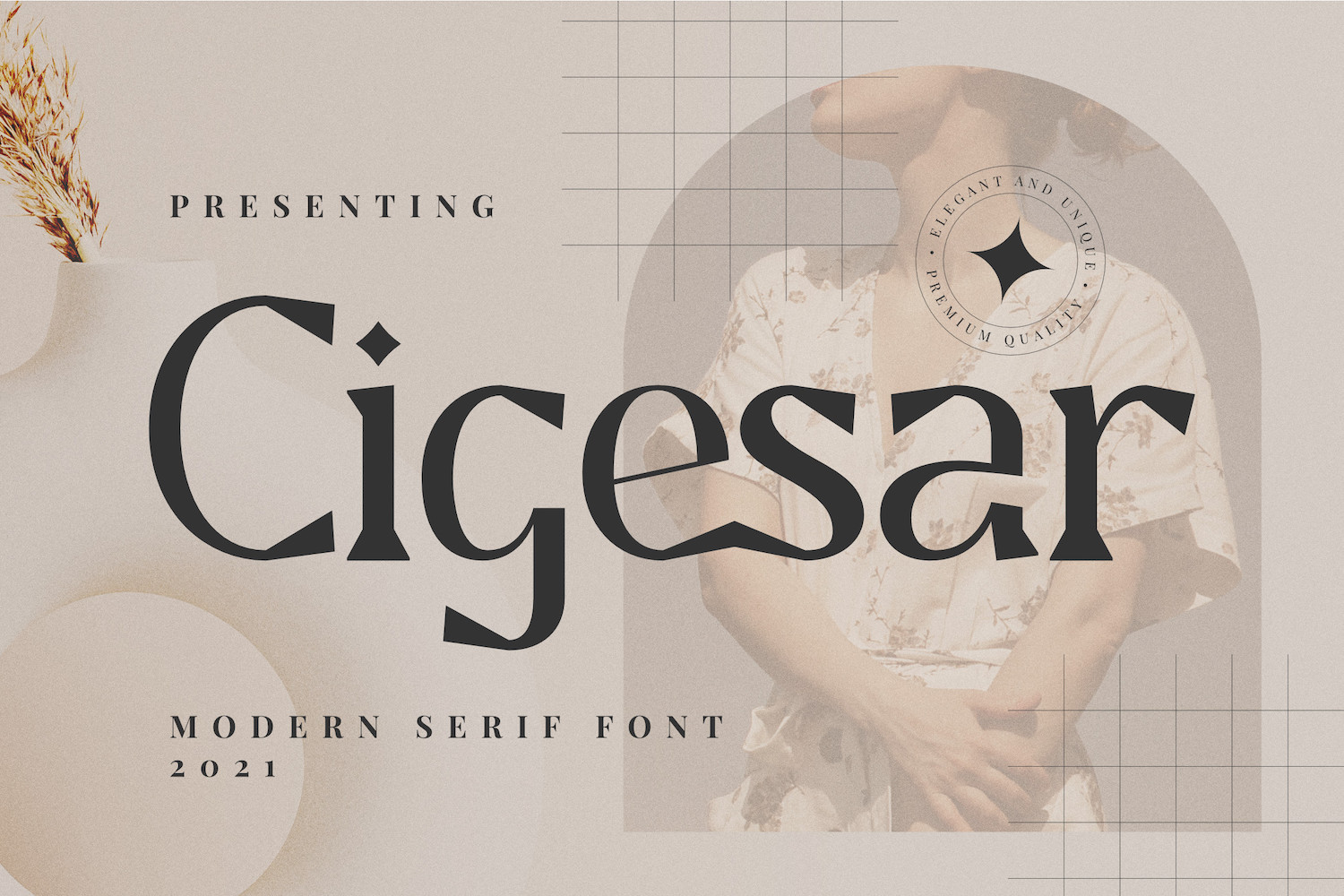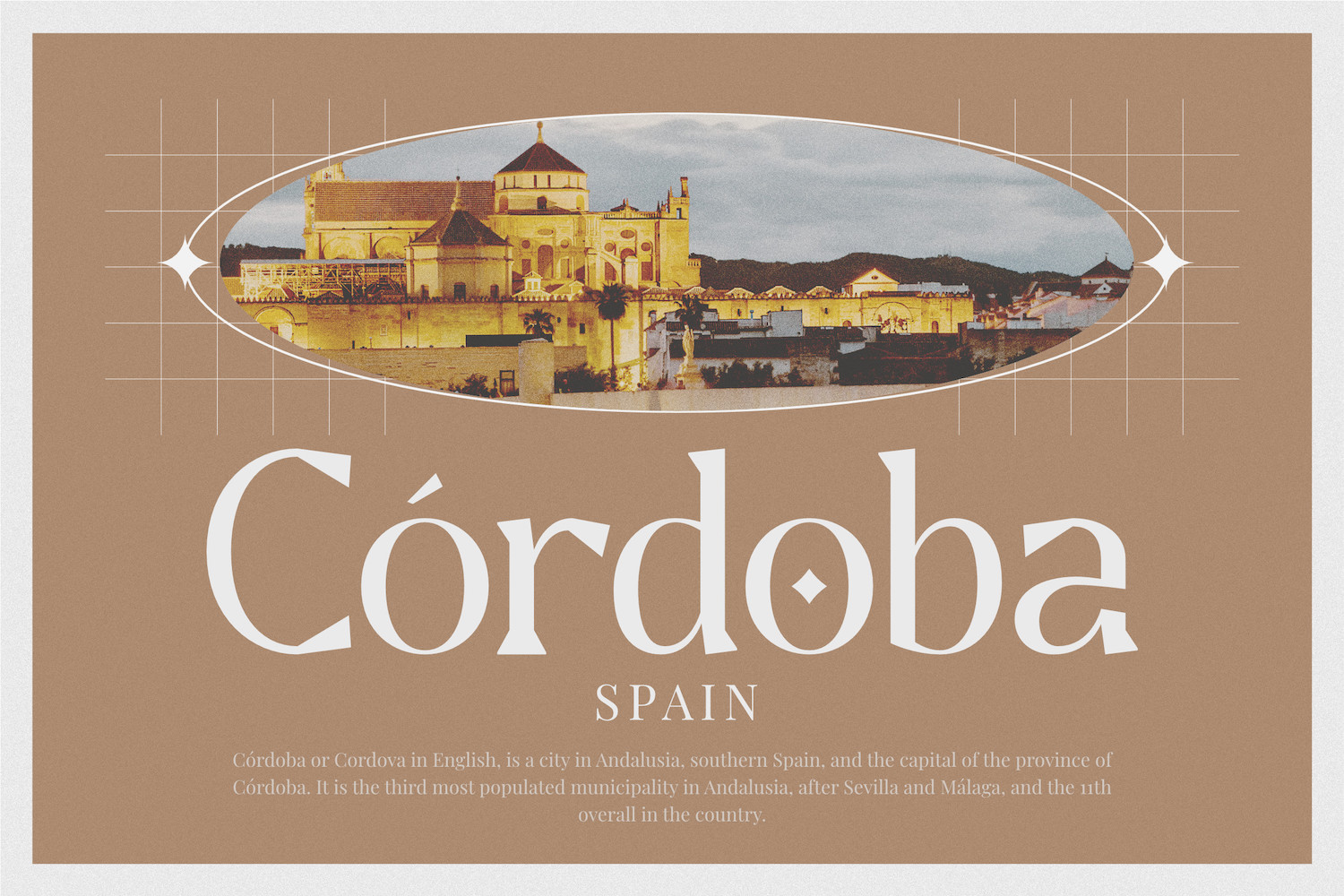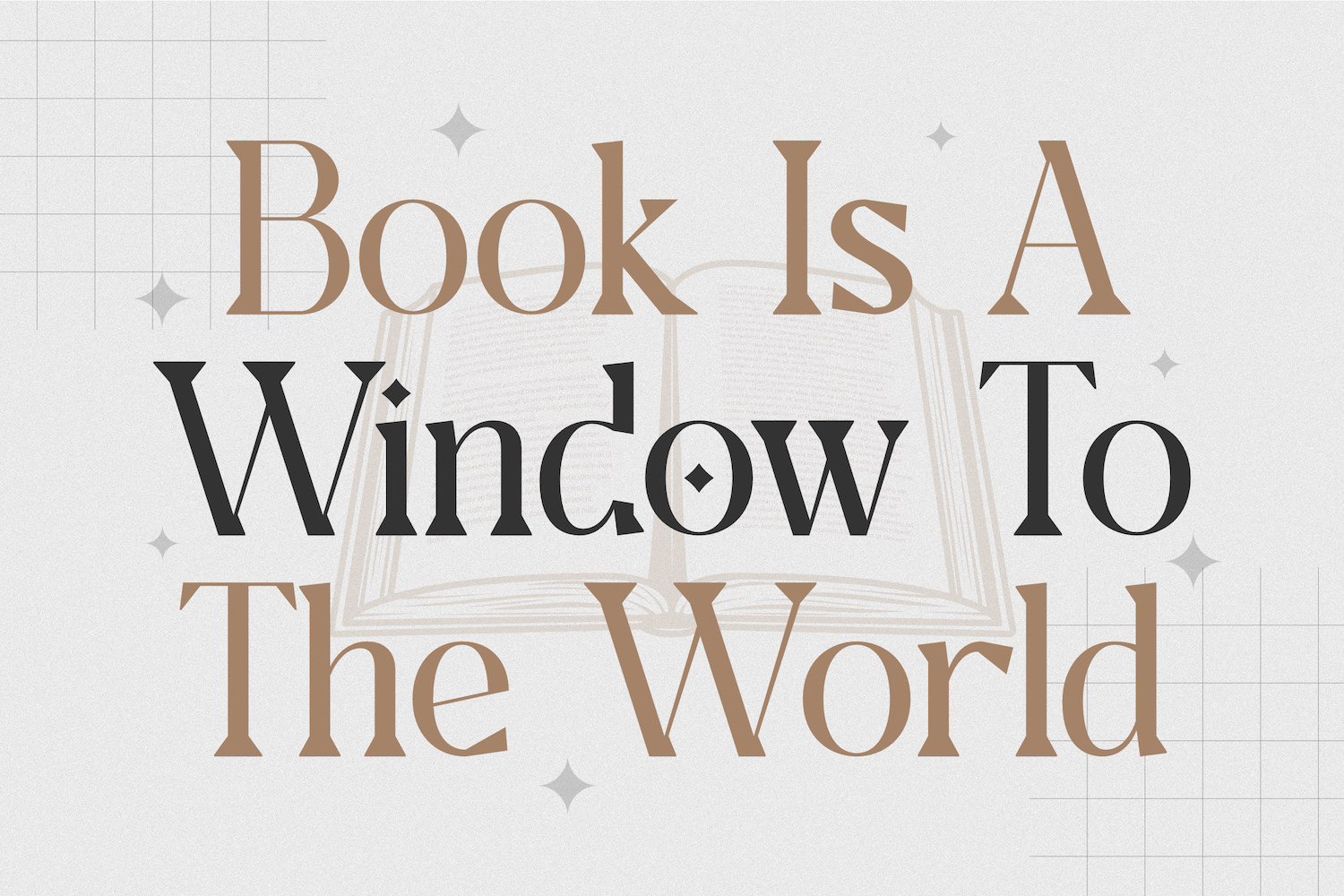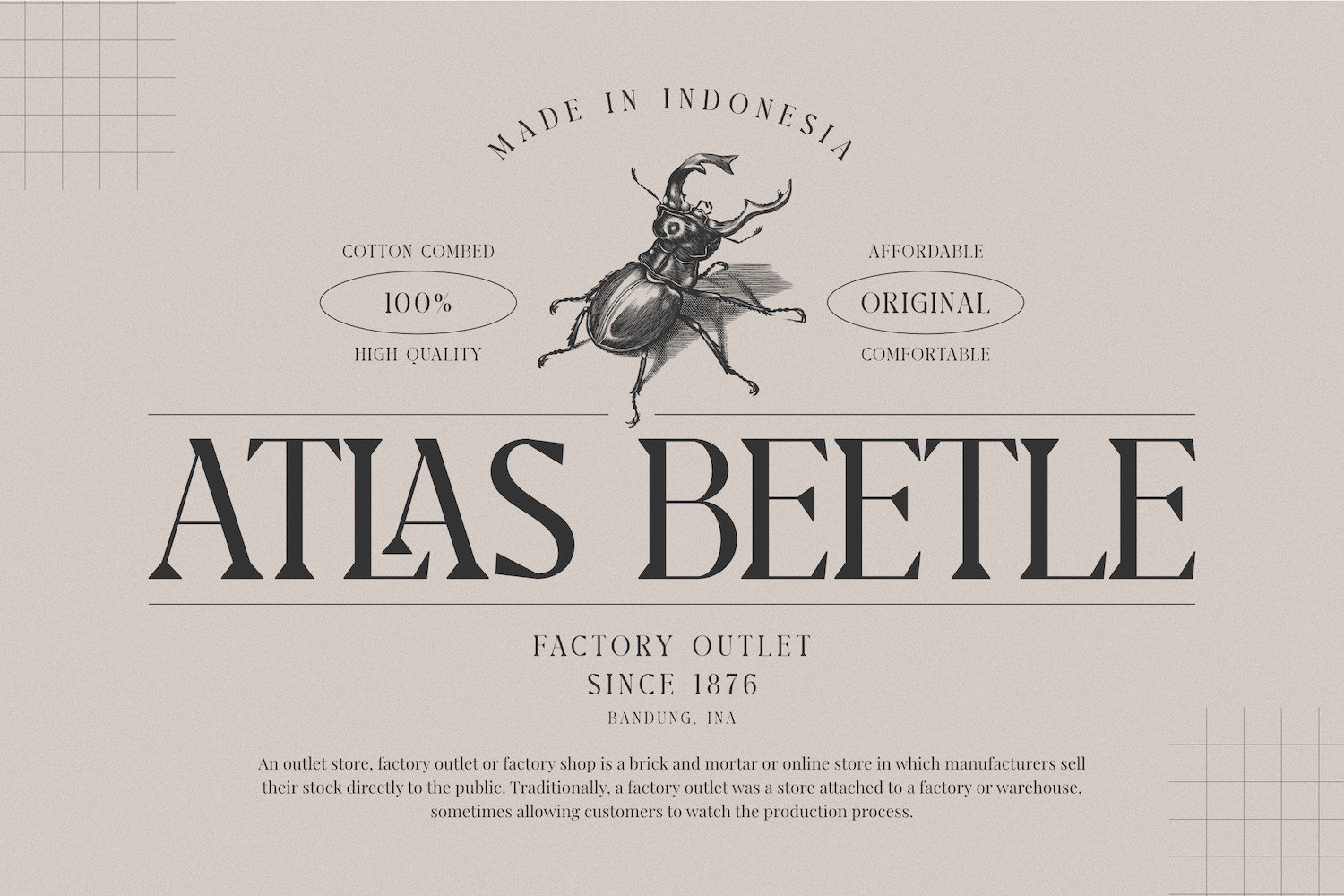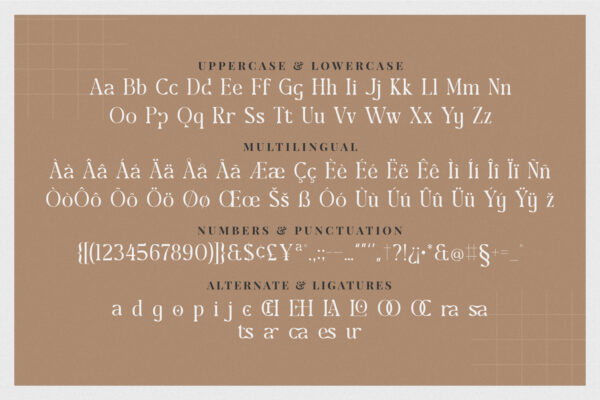
Cigesar is a modern serif font that combines bold elegance with geometric precision. Its distinctive sharp edges and dynamic letterforms create a powerful presence, making it ideal for editorial designs, luxury branding, book covers, and visual identities. With an eye-catching aesthetic, Cigesar brings a fresh interpretation of classical serif styles while maintaining high readability.
This font comes with a wide range of features including uppercase and lowercase letters, numerals, punctuation, multilingual support, alternates, and stylish ligatures. Whether you’re working on print designs or digital projects, Cigesar provides flexibility and sophistication that elevate your typography.
Cigesar